A teenage mutant ninja turtles logo maker based on this xkcd comic.
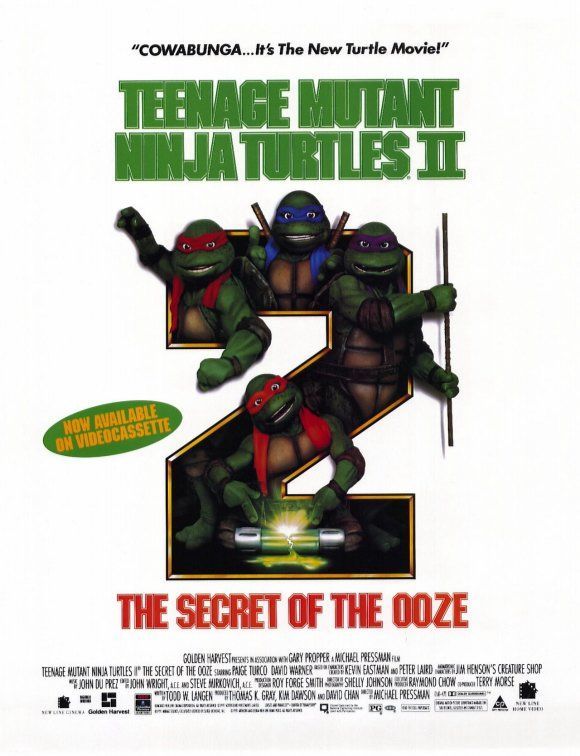
Ninja turtles movie font. ️ customize your own preview on ffonts.net to make sure it`s the right one for your designs. Free download of ninja turtles font. Nickelodeon teenage mutant ninja turtles toys.
Oct 19, 2014 at 18:16. The lettering for the green arched “turtles” is very similar to a font called turtles by neale davidson. 22nd july, 2014 inspired in ninja turtles movie font this is a clone of guardians action turtles (5) mutant (2 ninja turtlesregular1.
Type into the box below to make a logo. Teenage mutant ninja turtles also known as tmnt is a famous kids cartoon and movie series. Please can someone tell me what font is used in the teenage mutant ninja turtles 2014 movie logo?
Teenage mutant ninja turtles fonts. Fans have recreated the fonts from the movies so you can generate your own turtle power letters for free! 1 professional teenage mutant ninja turtles fonts to download.
This thick, distressed typeface is based on the popular clasic teenage mutant ninja turtles logo. Search from a wide range of typography fonts Free teenage mutant ninja turtles fonts (.ttf &.otf).
The font is available in uppercase letters numbers and most punctuation marks and diacritical letters. For all things teenage mutant ninja turtles! The ninja turtles font contains 90 beautifully designed characters.
Page 1 of 1 chlorinar by caffeen download chlorinar font 1980s boulders decorative famous movies outline rocks rounded stone age teenage mutant ninja turtles tmnt tv share this font. Download the free font replicating elements of the teenage mutant ninja turtles logo and many more at the original famous fonts. Ninja turtles font font inspired on ninja turtles movie.
Chlorinar also known as teenage mutant ninja turtles font is a fancy cartoon font designed by caffeen fonts. 11th august, 2015 last edited: Teenage mutant ninja turtles 2014 movie font?
Teenage mutant ninja turtles available in windows and mac os x version. Click now to create a custom image with your own words that you can download. Teenage mutant ninja turtles was a huge success during the late 1980's and to this day the franchise is still coming out with new products.
The font is available in uppercase letters, numbers and most punctuation marks and diacritical letters. Turtles font png, turtles alphabet letters, turtles clipart, digital turtles instant download, teenage mutant ninja turtles cricut cut files. Aside from being a comic book series, a cartoon series, and a movie series, several videogames over ten game have been released bearing the name tmnt.